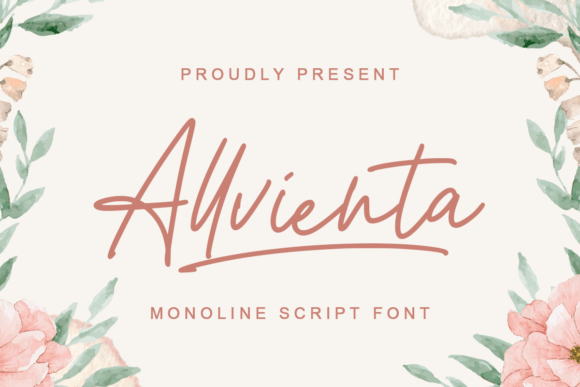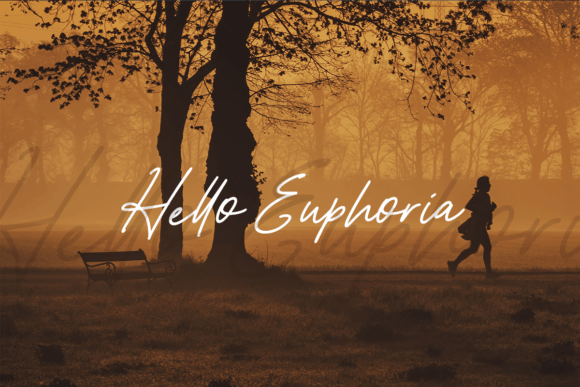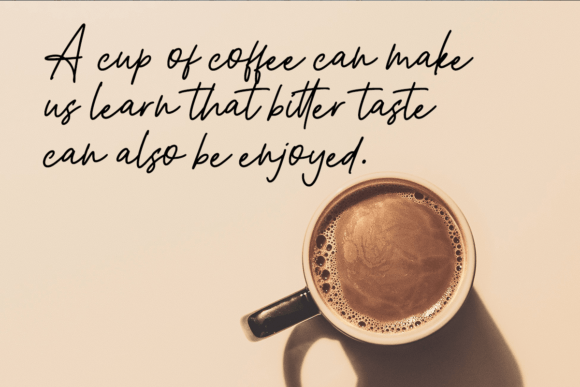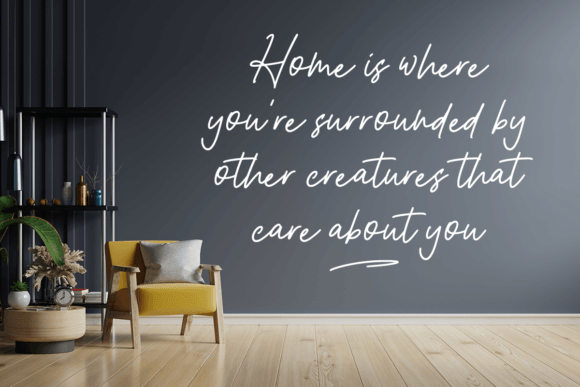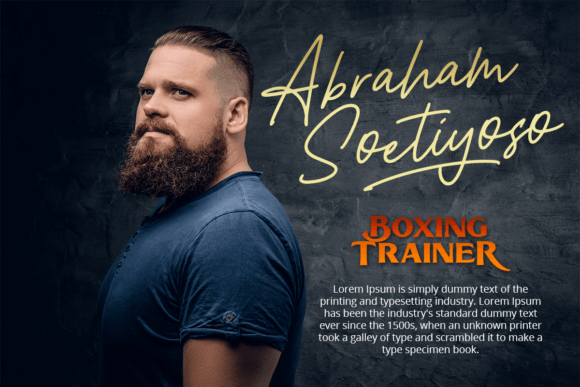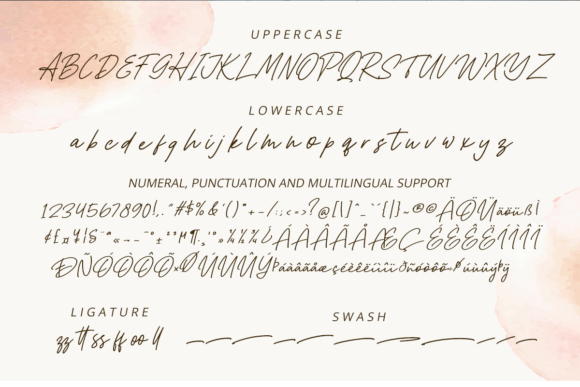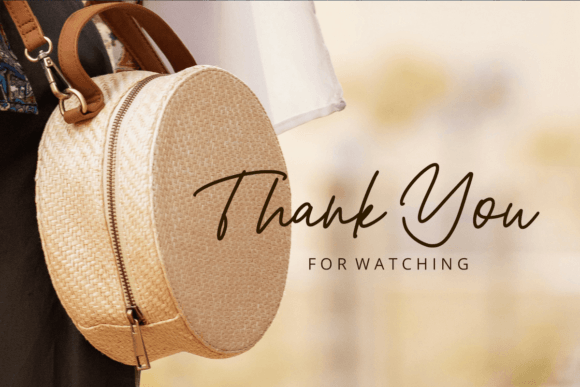
Allvienta Font
About Allvienta Font
**Allvienta** is a stunning monoline handwritten font that embodies beauty, grace, and elegance. Its delicate and thin strokes lend it an air of sophistication, making it the perfect choice for design projects that require a touch of modernity and class. With its simple yet captivating curves, **Allvienta** effortlessly appeals to the eye, adding a sense of refinement and style to any creative endeavor.
One of the standout features of **Allvienta** is its simplicity. The font’s clean lines and elegant curves create a harmonious and visually pleasing effect, making it suitable for a wide range of applications. Whether used for branding, invitations, logos, social media posts, or any other design project, **Allvienta** adds a modern and fancy aesthetic that captures attention and leaves a lasting impression.
The font’s monoline style, characterized by consistent stroke thickness, adds to its versatility. Its uniformity creates a sense of balance and clarity, ensuring readability and legibility in various design contexts. **Allvienta**’s elegance lies in its subtlety, making it a versatile choice for both print and digital media.
By incorporating **Allvienta** into your designs, you infuse them with an aura of sophistication and modernity. Its thin and elegant appearance makes it an ideal choice for projects that demand a touch of refinement, adding a layer of visual appeal that elevates your designs to new heights. Whether used for upscale branding or stylish social media posts, **Allvienta** delivers a timeless and elegant presence that resonates with viewers, making it a valuable asset for designers seeking a font that combines beauty, simplicity, and sophistication.